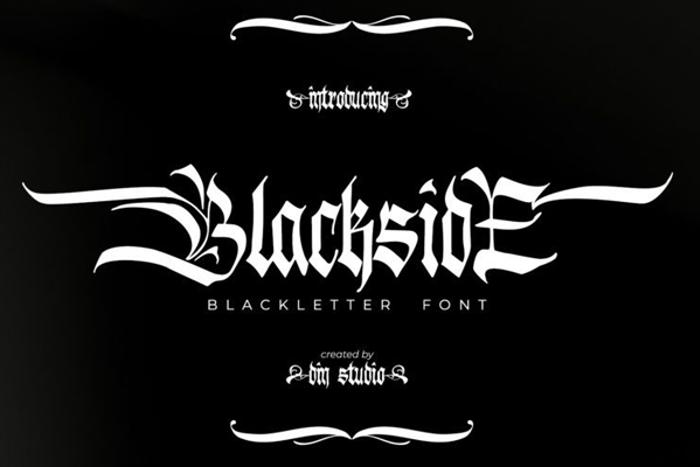
Blackside Font
Blackside, a bold and authentic blackletter font suitable for any branding projects, like logos, t-shirt printings, etc. which is outstanding in a wide range of contexts. See the previews above to get some inspiration on how you can use them.
Features include:
• Alternates
• Multilingual Supports
• Numerals and Punctuations